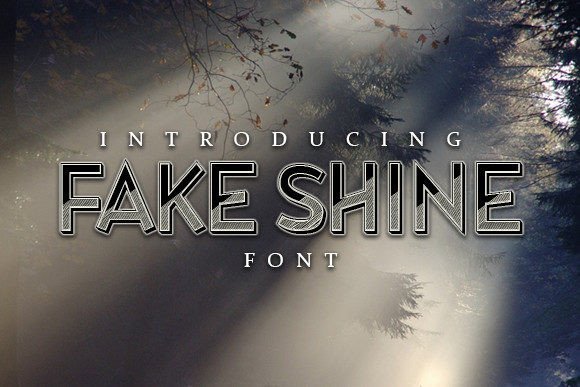
The Perfect Typography Match: Unleashing the Power of Fake Shine Font
You’ve stared at a blank canvas, your mind buzzing with creative ideas, and your fingers itching to bring them to life. The moment of truth has finally arrived – it’s time to choose the perfect font to set the tone for your project. And that’s when you stumble upon it – Fake Shine Font, a bold and stylish display font that’s guaranteed to make your design stand out from the crowd.
With its assertive yet elegant touch, the Fake Shine Font is the perfect choice for designers who dare to be different. Whether you’re working on a branding project, a packaging design, or a social media campaign, this font will add a touch of sophistication and style to your work. Its versatility and unique character make it a valuable asset for any designer looking to elevate their typography game.
Key Features of Fake Shine Font
- Unique Characteristics: Fake Shine Font features a distressed, vintage look with a subtle shine effect, giving it a unique and eye-catching appearance.
- Font Style: The font is a sans-serif, with a bold and modern feel, making it perfect for use in headings, titles, and other prominent text elements.
Designer Review: Fake Shine Font
When I first laid eyes on the fake shine font, I was immediately drawn to its ✨ eye-catching, shimmering effect. The font’s ability to mimic the look of polished chrome or mirrored glass is undeniably impressive. I appreciate how the designer has captured the subtlety of shine, making it perfect for use in advertising, luxury branding, or any project that requires a touch of sophistication.
However, as I dug deeper, I started to notice some limitations ⚠️. Firstly, the font may be too flashy for some projects, potentially overpowering the message or visuals. Secondly, the shine effect can be quite dense, making it difficult to read at smaller font sizes. Lastly, the font’s versatility is somewhat limited, making it less suitable for body text or everyday use.
Pros and Cons:
- ✨ Stunning, high-end shine effect
- Perfect for advertising, luxury branding, or sophisticated projects
- Easy to use and customize
- ⚠️ May be too flashy for some projects
- ⚠️ Difficult to read at smaller font sizes
- ⚠️ Limited versatility for body text or everyday use
Overall, I think the Fake Shine Font is a great choice for the right project. It’s perfect for making a statement or adding a touch of luxury to your design. However, it’s essential to use it judiciously and balance it with more readable text to avoid overwhelming the viewer.
Tips for Getting the Most Out of Fake Shine Font
Experiment with different font sizes, colors, and styles to achieve the desired shine effect.
Combine Fake Shine Font with other design elements, such as graphics or images, to create visually appealing designs.
Fake Shine Font is ideal for:
Creating eye-catching headlines and titles.
Adding a touch of luxury or sophistication to designs.
Enhancing the visual appeal of digital products, such as e-books and presentations.